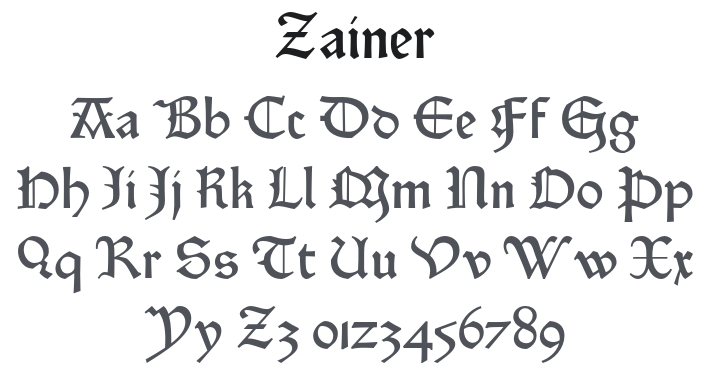
Zainer Font Family
by ANRT
Zainer Font Family
• Zainer Gotico-Antiqua 96G
• Zainer Initials 45 mm
About Zainer
Zainer 96G, Gotico-Antiqua first used in Ulm by Johann Zainer for Jacques de Voragine’s Legenda aurea not after 1477 and used until 1485. Type design workshop at Hochschule Aachen and Stadtbibliothek Aachen, October 2017.
Zainer Initials, richly decorated gothic initials of 45 mm height, first used in Ulm by Johann Zainer for the Spiritual Interpretations of the Life of Jesus Christ around 1478. Used until 1480. Type design workshop at Hochschule Aachen and Stadtbibliothek Aachen, October 2017.